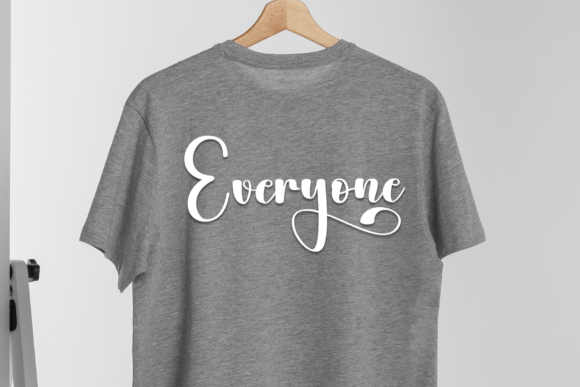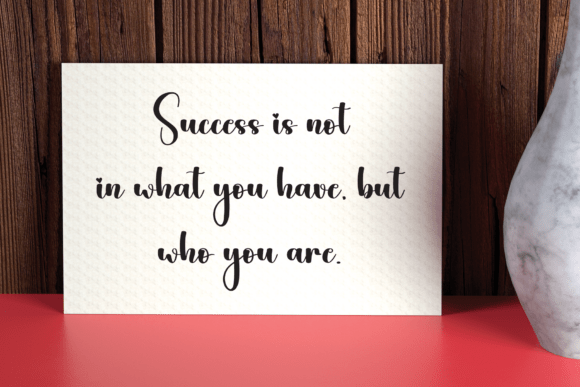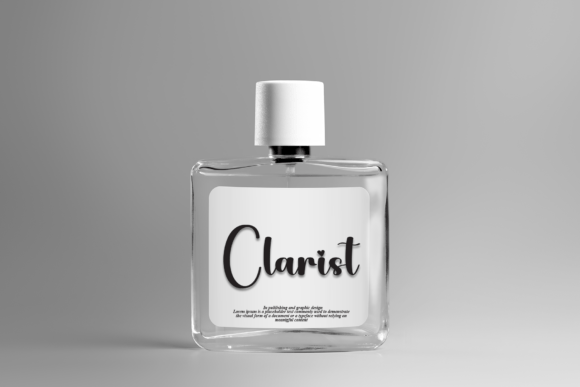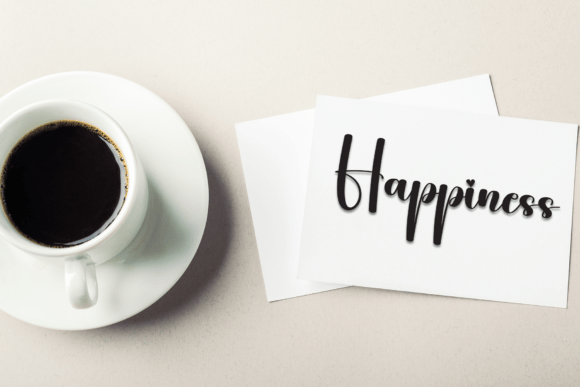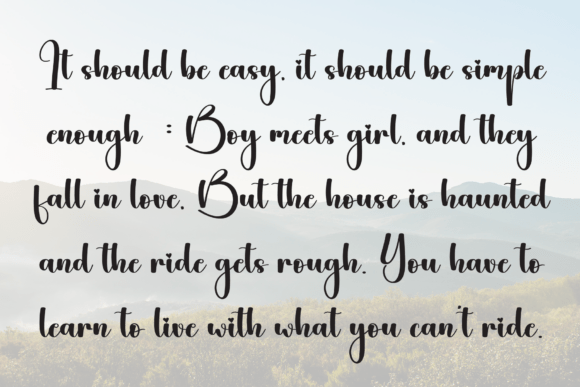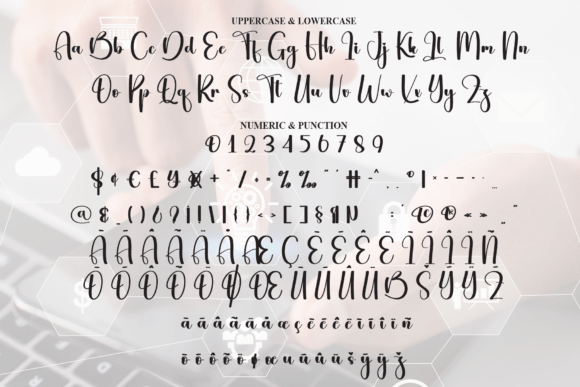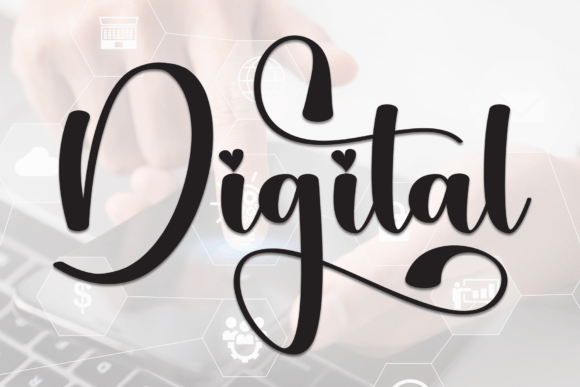
Unlocking Creative Potential: The Beauty of Digital Font
In the realm of digital design, the right typography can elevate a project from ordinary to extraordinary. Among the myriad of fonts available, Digital Font stands out for its unique blend of artistic flair and contemporary elegance. This stylish script font is not just a typeface; it’s an expression of creativity, perfect for designers and crafters looking to infuse their work with a touch of sophistication and modernity.
The Essence of Digital Font
Digital Font is characterized by its fluid brush strokes, dynamic curves, and expressive letterforms. These features capture the essence of hand-painted calligraphy but with a modern twist that makes it distinctly contemporary. The fluidity of the brush strokes gives the font a natural, almost organic feel, as if each letter was handcrafted. This quality makes Digital Font versatile and highly adaptable across various design applications.
Applications of Digital Font
The versatility of Digital Font makes it an excellent choice for a wide range of design projects. Here are some of the ideal applications:
- Logos: For businesses looking to establish a brand identity that is both creative and sophisticated, Digital Font offers a stylish solution.
- Invitations: Whether it’s a wedding, a birthday party, or any other celebration, this font adds an elegant and personal touch to invitations.
- Packaging: For product packaging that stands out on shelves, Digital Font brings a modern and artistic flair that can capture consumers’ attention.
- Social Media Graphics: In the digital age, social media presence is crucial. This font can help create engaging and visually appealing graphics that resonate with audiences.
Why Choose Digital Font?
Choosing Digital Font for your design projects comes with several benefits:
- Visual Impact: The unique and stylish appearance of Digital Font ensures that your designs leave a lasting impression.
- Versatility: Its adaptability across various design applications makes it a valuable addition to any designer’s toolkit.
- Contemporary Elegance: It brings a modern touch to traditional calligraphy, making it perfect for projects that require a blend of classic and contemporary elements.
Tips for Using Digital Font Effectively
To maximize the potential of Digital Font, consider the following tips:
- Pair it Wisely: Combine Digital Font with complementary fonts to create visual hierarchy and enhance readability.
- Adjust Letter Spacing: Tweaking the letter spacing can improve the flow and aesthetics of your text, especially in longer pieces.
- Experiment with Colors: The font’s vibrant character shines with bold colors, but it can also be elegant in monochromatic schemes.
Digital Font is more than just a typeface; it’s a design statement. With its artistic flair, contemporary elegance, and versatile nature, it offers endless possibilities for creative expression. Whether you’re a professional designer or a crafter, this font has the potential to transform your projects, adding a touch of sophistication and modernity. Embrace the beauty of Digital Font and unlock new dimensions of creativity in your work.
In the ever-evolving landscape of digital design, having tools like Digital Font at your disposal can make all the difference. It’s not just about creating something visually appealing; it’s about conveying a message, telling a story, and connecting with your audience on a deeper level. With Digital Font, you’re not just choosing a font; you’re choosing a way to communicate your vision with style and elegance.